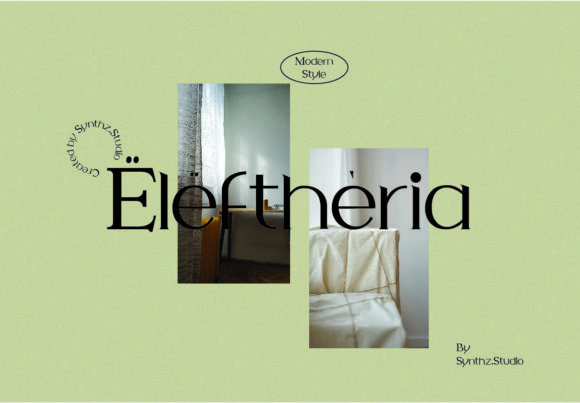
Introducing Eleftheria Font: The Elegant and Chic Serif Font for Sophisticated Designs
When it comes to creating visually stunning designs, the right font can make all the difference. For those seeking an elegant and chic serif font, look no further than Eleftheria. This beautiful font is perfect for a variety of applications, from magazine titles and product promotions to feature film productions. In this article, we’ll take a closer look at Eleftheria font, its features, and how it can elevate your designs.
What is Eleftheria Font?
Eleftheria is a serif font that exudes elegance and sophistication. Its classic design makes it an excellent choice for those seeking a refined and luxurious look. The font features beautiful serifs, carefully crafted to add a touch of refinement to any design. Whether you’re working on a magazine title, product promotion, or film production, Eleftheria font is sure to impress.
Use Cases for Eleftheria Font
Eleftheria font is incredibly versatile and can be used in a variety of applications. Here are some of the most popular use cases:
- Magazine Titles: Eleftheria font is perfect for creating eye-catching magazine titles. Its elegant design and beautiful serifs make it an excellent choice for fashion, lifestyle, and luxury publications.
- Product Promotions: If you’re looking to create a sophisticated and luxurious feel for your product promotions, Eleftheria font is an excellent choice. Its classic design and refined serifs will help elevate your brand and make your products stand out.
- Feature Film Productions: Eleftheria font can also be used in feature film productions, from titles to assets. Its elegant design and beautiful serifs make it an excellent choice for creating a cinematic feel.
Benefits of Using Eleftheria Font
So, why choose Eleftheria font for your designs? Here are some of the benefits of using this beautiful serif font:
- Elegant Design: Eleftheria font features an elegant design that will add a touch of sophistication to any design.
- Versatility: Eleftheria font is incredibly versatile and can be used in a variety of applications, from magazine titles to feature film productions.
- Classic Look: The font features a classic look that will never go out of style. Its beautiful serifs and refined design make it an excellent choice for those seeking a luxurious feel.
Design Tips for Using Eleftheria Font
To get the most out of Eleftheria font, here are some design tips to keep in mind:
- Pair with a Sans-Serif Font: Pair Eleftheria font with a sans-serif font to create a beautiful contrast and add visual interest to your design.
- Use for Headings: Eleftheria font is perfect for headings and titles. Use it to create eye-catching headlines that will grab attention.
- Experiment with Colors: Don’t be afraid to experiment with different colors and textures to add depth and visual interest to your design.
In conclusion, Eleftheria font is an elegant and chic serif font that’s perfect for a variety of applications. Its classic design, beautiful serifs, and versatility make it an excellent choice for designers and artists seeking a sophisticated and luxurious look. Whether you’re working on a magazine title, product promotion, or feature film production, Eleftheria font is sure to impress.